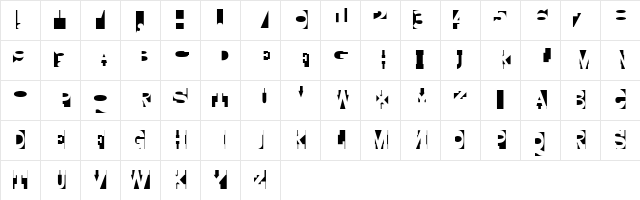
Complete Yurnacular Medium glyph index. Displaying only characters natively supported by Yurnacular Medium font.
Yurnacular is a composed and adaptable typeface that performs quietly and consistently across a wide range of design contexts.